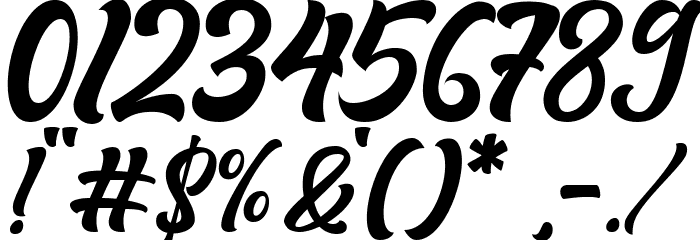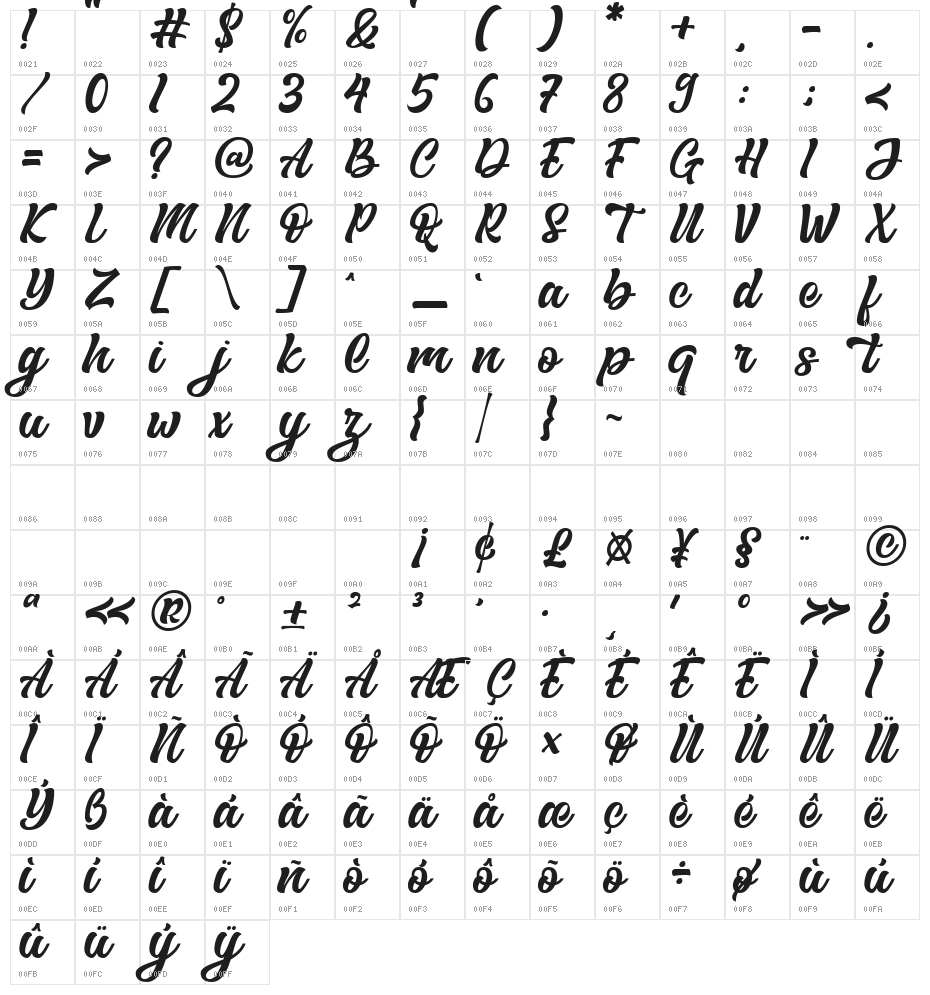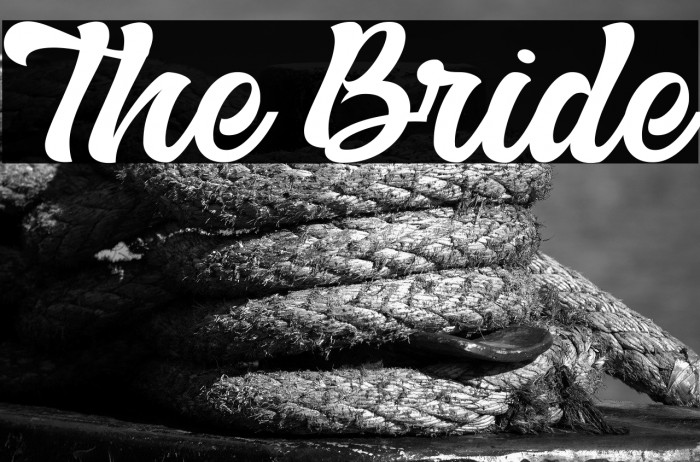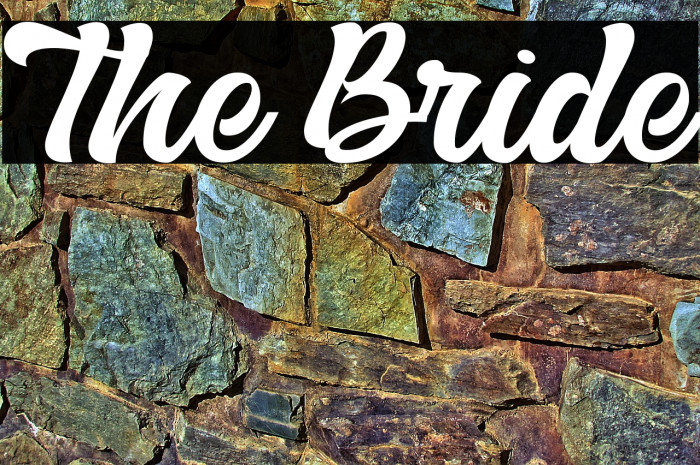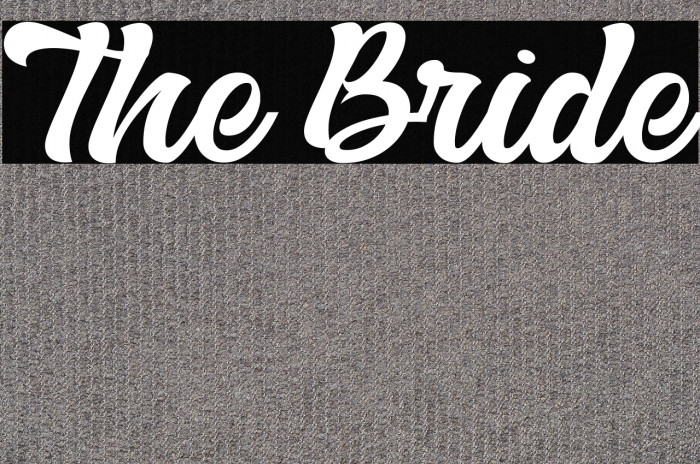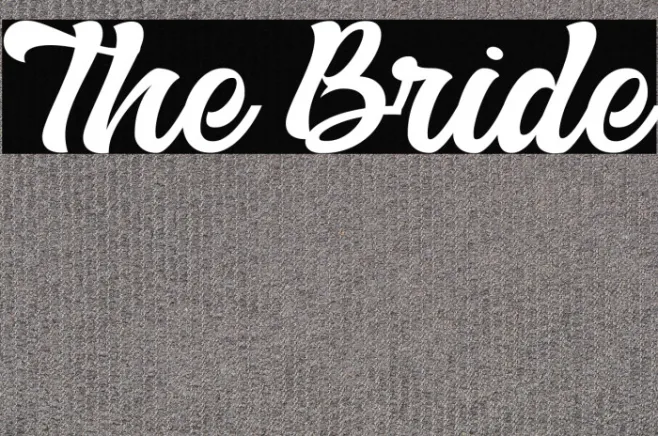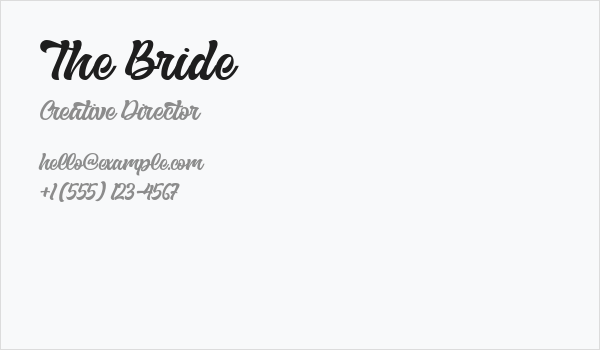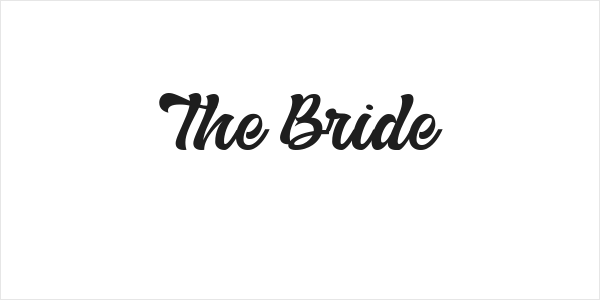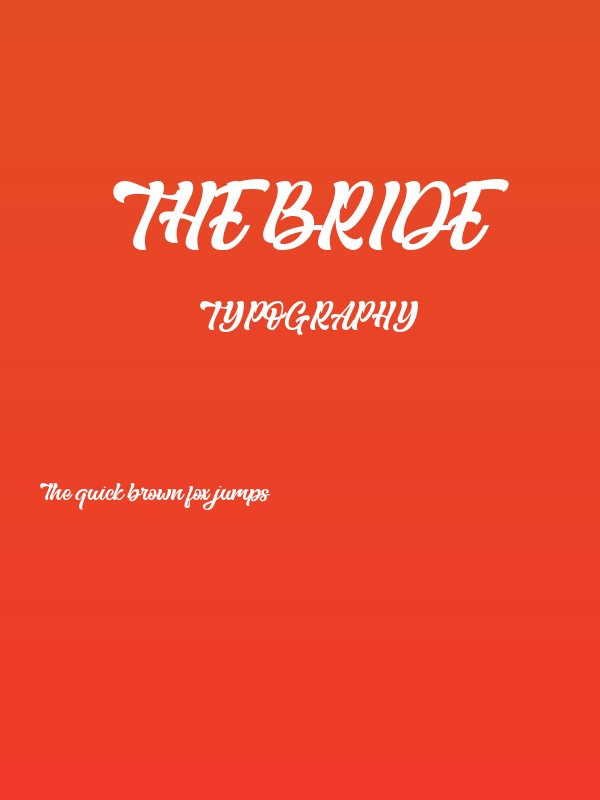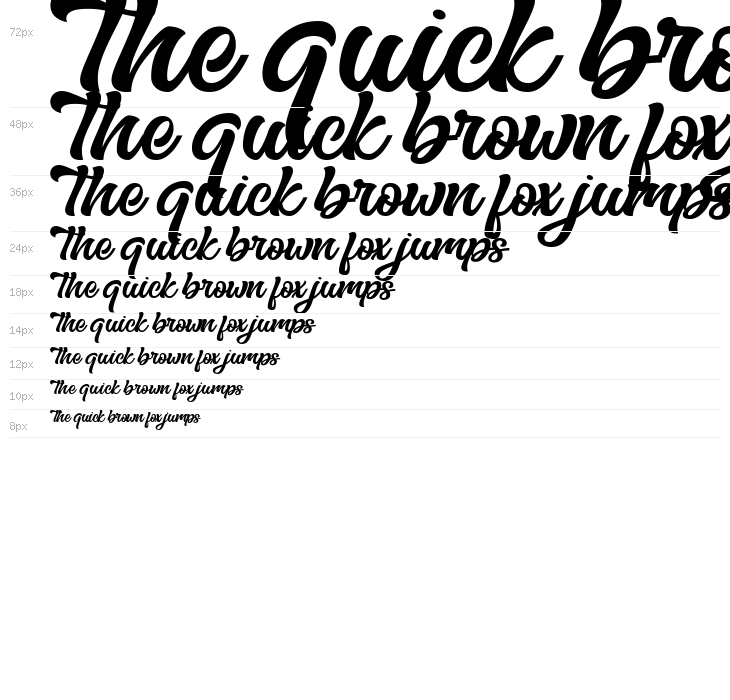
The Bride Font
The Bride Description
This font features a bold, flowing script style that exudes elegance and sophistication. The characters are interconnected, creating a seamless and fluid appearance. The uppercase letters are slightly larger and more ornate, while the lowercase letters maintain a consistent flow. The numbers and special characters are designed to match the overall style, ensuring a cohesive look across all text. The strokes are thick, providing a strong visual impact, and the curves are smooth and graceful, enhancing the font's decorative appeal.
| Proposed Projects | Ideal for wedding invitations, elegant branding, greeting cards, and decorative signage. |